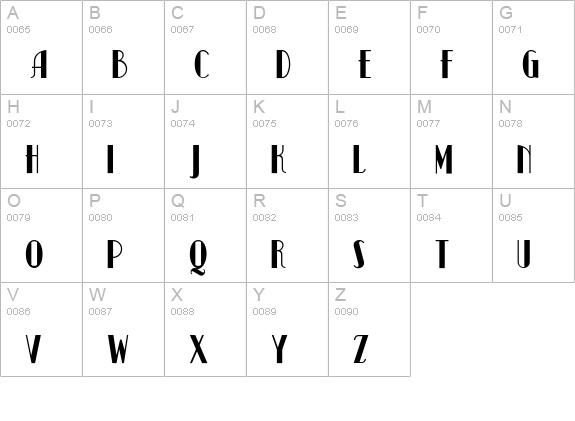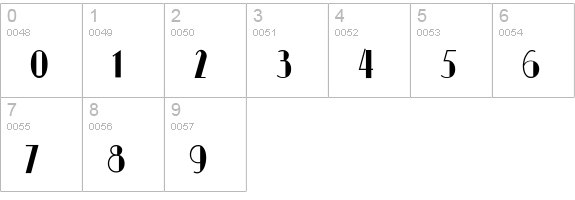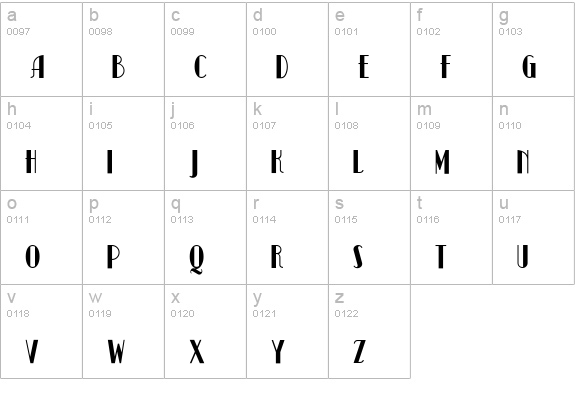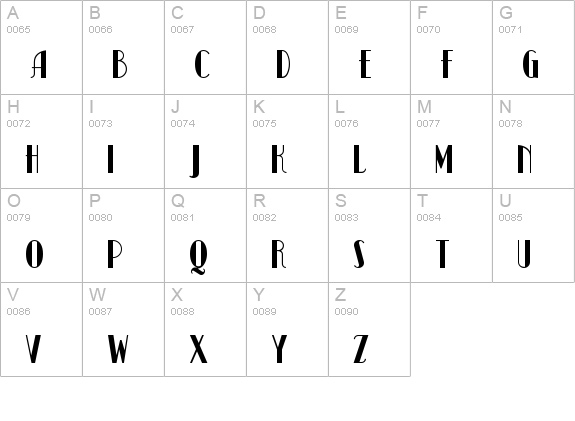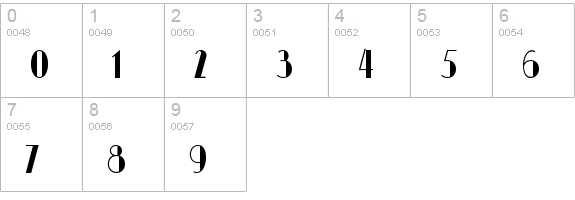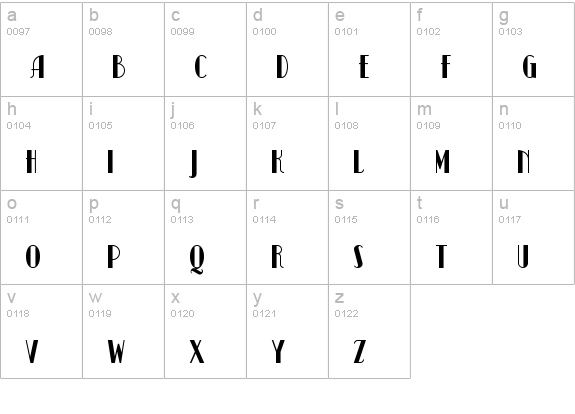
Kismet-Normal Font Details
Kismet-Normal is the standard, neutral variant in the Kismet typeface family \xE2\x80\x94 well suited to general body text, paragraphs, and standard typographic work.
Introducing Kismet-Normal, a beautifully crafted font that exudes elegance and sophistication. This versatile typeface captures the essence of classic typography with a modern twist, making it a perfect choice for a wide range of design projects. With its clean lines and balanced proportions, Kismet-Normal brings a sense of harmony and professionalism to any text it graces. Whether used for branding, advertising, or editorial purposes, this font instantly elevates the visual appeal of any design. One of the best things about Kismet-Normal is that it is freely available to download at FontsMarket.com. This means that you can easily access and use this stunning font in your creative endeavors without any cost or hassle. It's a fantastic opportunity to add a touch of sophistication to your designs at no expense. The timeless beauty of Kismet-Normal is enhanced by its extensive character set, including uppercase and lowercase letters, numbers, punctuation marks, and special symbols. This font also supports multiple languages, making it accessible to designers around the world. Whether you're designing a logo, creating a website, or working on a print project, Kismet-Normal offers endless possibilities. Its versatility and elegance make it well-suited for both bold headlines and refined body text. Download Kismet-Normal today from FontsMarket.com and unlock the potential to create stunning designs that make a lasting impression. With this free font at your fingertips, you have the power to elevate your design projects to new heights of visual appeal and professionalism. Don't miss out on this opportunity to enhance your creative vision with Kismet-Normal.